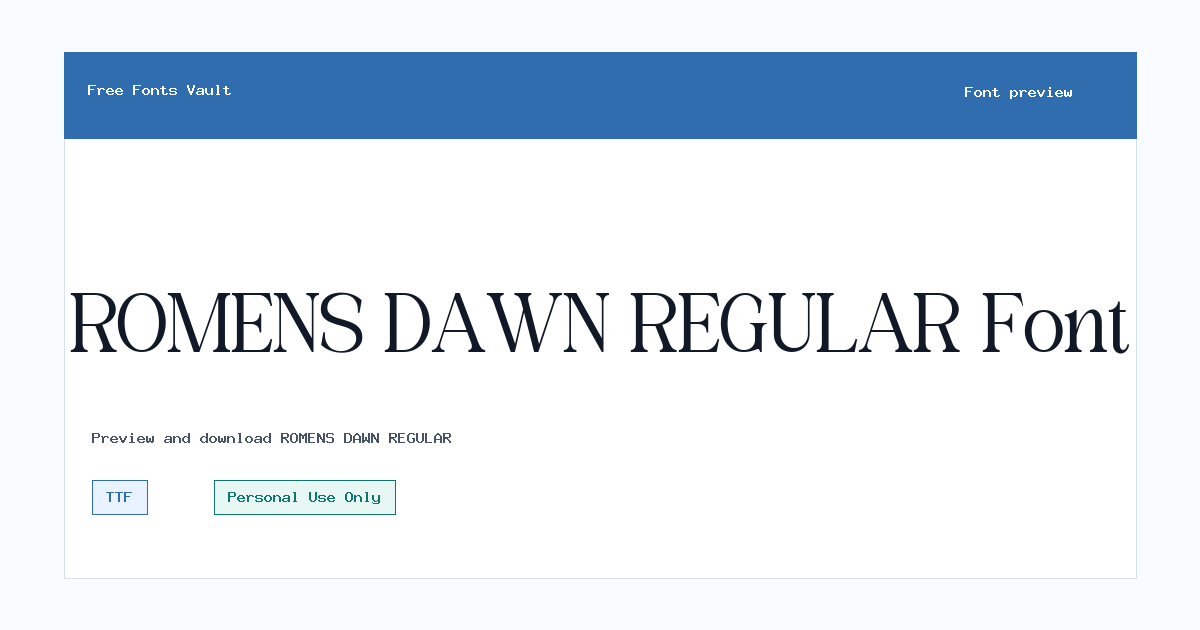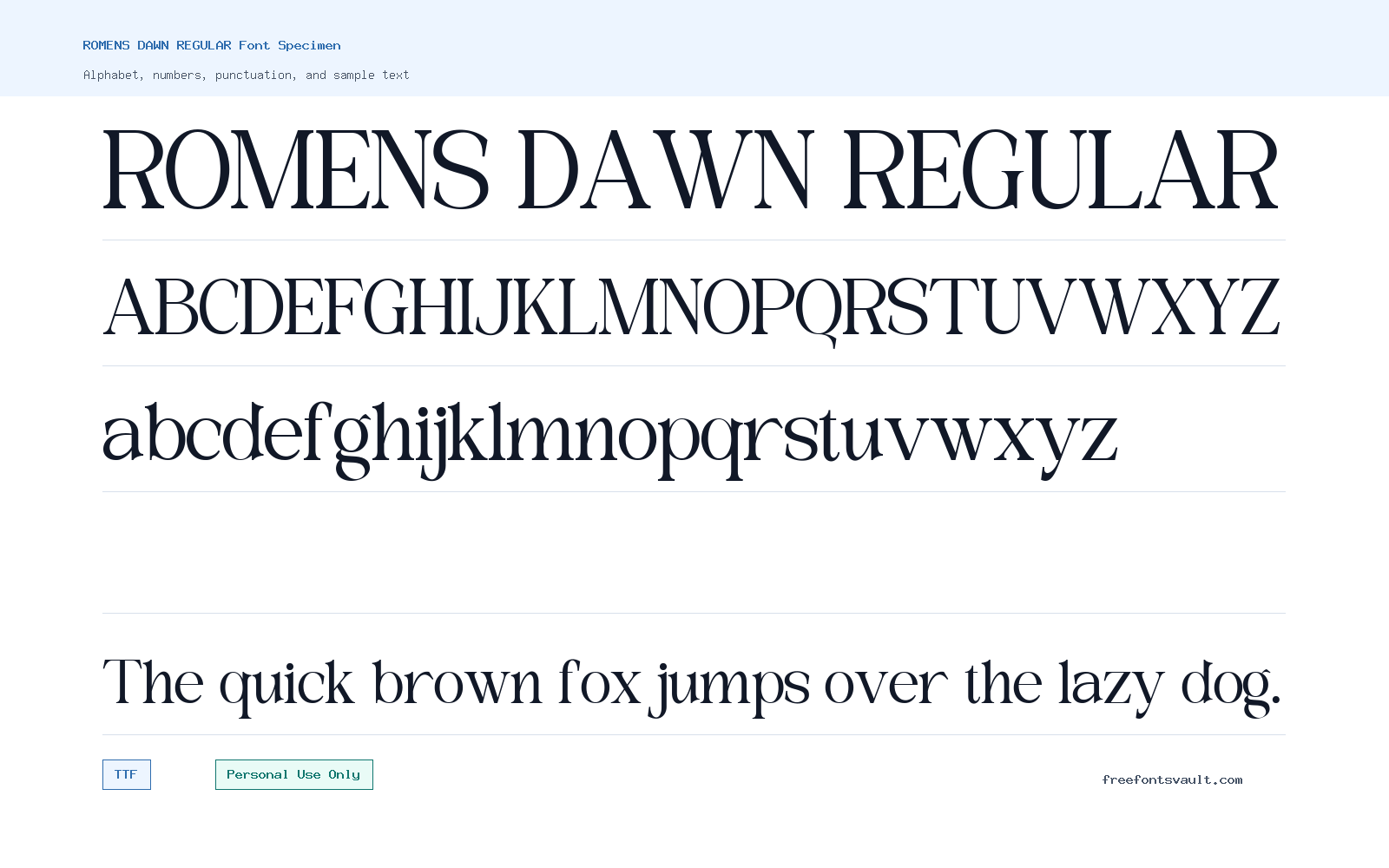
ROMENS DAWN REGULAR
ROMENS DAWN REGULAR is a personal-use font from FLAWLESSANDCO, offered in a regular TTF style for visitors who want to test a clean display typeface before downloading.
About ROMENS DAWN REGULAR
ROMENS DAWN REGULAR is best approached as a display font rather than a long-reading text face. The name and license reference describe it as a serif font, so it is a good candidate to preview for titles, decorative headings, quote graphics, boutique-style layouts, and visual concepts where the type needs more character than a plain system font. Because only the regular style is listed, the safest way to judge it is to type your exact words in the preview box and see how the spacing, capitals, punctuation, and letter shapes behave at the size you plan to use.
For design work, use ROMENS DAWN REGULAR where a single headline or short phrase can carry the mood of the layout. It may suit poster titles, invitation drafts, logo mockups, packaging concepts, editorial headers, Pinterest graphics, and web hero mockups. Avoid relying on it for dense paragraphs until you have tested readability carefully. Display fonts often look strongest in short lines, with generous spacing and simple surrounding elements. Pair it with a neutral sans serif for body copy, captions, menus, and supporting text so the page or design does not feel too busy.
- Personal-use display option suited to short titles, mockups, and decorative typography tests
- Serif font reference in the license name
- Single-style family, useful when a simple regular-weight treatment is enough
- Works best when previewed with the exact wording, size, and spacing needed for the project
- Logo drafts and brand concept boards
- Invitation headings and quote images
- Pinterest pins, social graphics, and mood boards
- Web hero mockups and landing page title tests
- Packaging concepts, labels, and boutique-style layout trials
The designer is listed as FLAWLESSANDCO. No foundry name or designer website is listed for this font entry.
Start by previewing your actual headline, brand name, or short phrase. Check uppercase and lowercase forms, numbers, punctuation, and any accented characters you need. For logo work, inspect the spacing between problem pairs such as AV, WA, To, and Yo, then adjust tracking or kerning in your design software if needed. For posters and web mockups, give the font enough breathing room and pair it with a simpler sans serif for longer reading text. Since only a regular TTF file is listed, plan around one weight instead of expecting bold, italic, or extended family styles.
Who designed ROMENS DAWN REGULAR?
The designer is listed as FLAWLESSANDCO.
Can I use ROMENS DAWN REGULAR for a logo?
Is ROMENS DAWN REGULAR good for body text?
Use caution for long paragraphs. It is better to test it first for headings, short phrases, and display settings, then pair it with a neutral body font for longer text.
Does ROMENS DAWN REGULAR include bold or italic styles?
Only a regular style is listed. If you need bold, italic, or multiple weights, you may need another family for the supporting typography.
What should I pair with ROMENS DAWN REGULAR?
Pair it with a clean sans serif for body copy and small labels. A simple companion font helps keep attention on the decorative headline without making the layout hard to read.